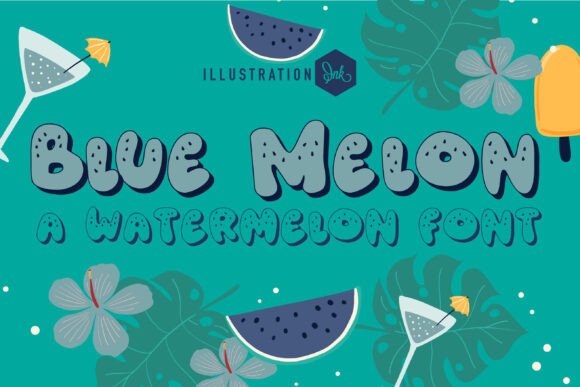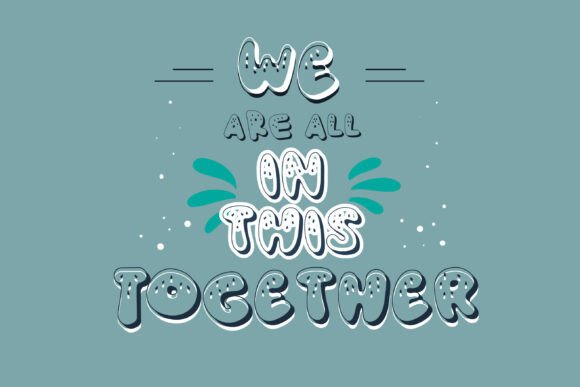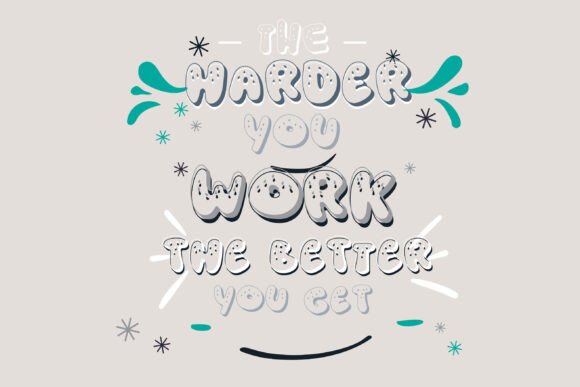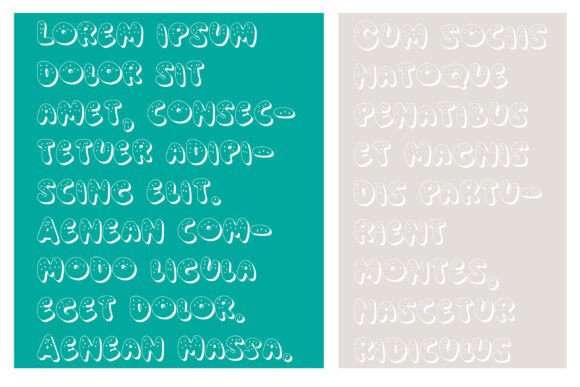
Blue Melon Font
About the Blue Melon Font
From logos to headlines, the Blue Melon Font is the perfect choice for making a lasting impression. This hand-crafted font is a soft, rounded, crafty font with melon seeds throughout.
Blue Melon Font’s soft, rounded forms make it ideal for projects requiring a friendly, approachable feel. It works exceptionally well in headlines, short text blocks on packaging, and branding elements where a handcrafted, charming aesthetic is desired. Consider it for invitations, greeting cards, or short-form social media content.
However, its handcrafted nature and varying letterforms make it less suitable for body text or lengthy paragraphs, impacting readability. Similarly, UI applications demanding high legibility should avoid this font.
Pairing Blue Melon with a clean sans-serif like Open Sans for body copy provides excellent contrast and balance. For a more playful approach, consider pairing it with a geometric sans-serif such as Montserrat. A contrasting serif like Playfair Display could also add a touch of elegance to projects using Blue Melon.
Blue Melon Font Usage Examples
Blue Melon Font Example